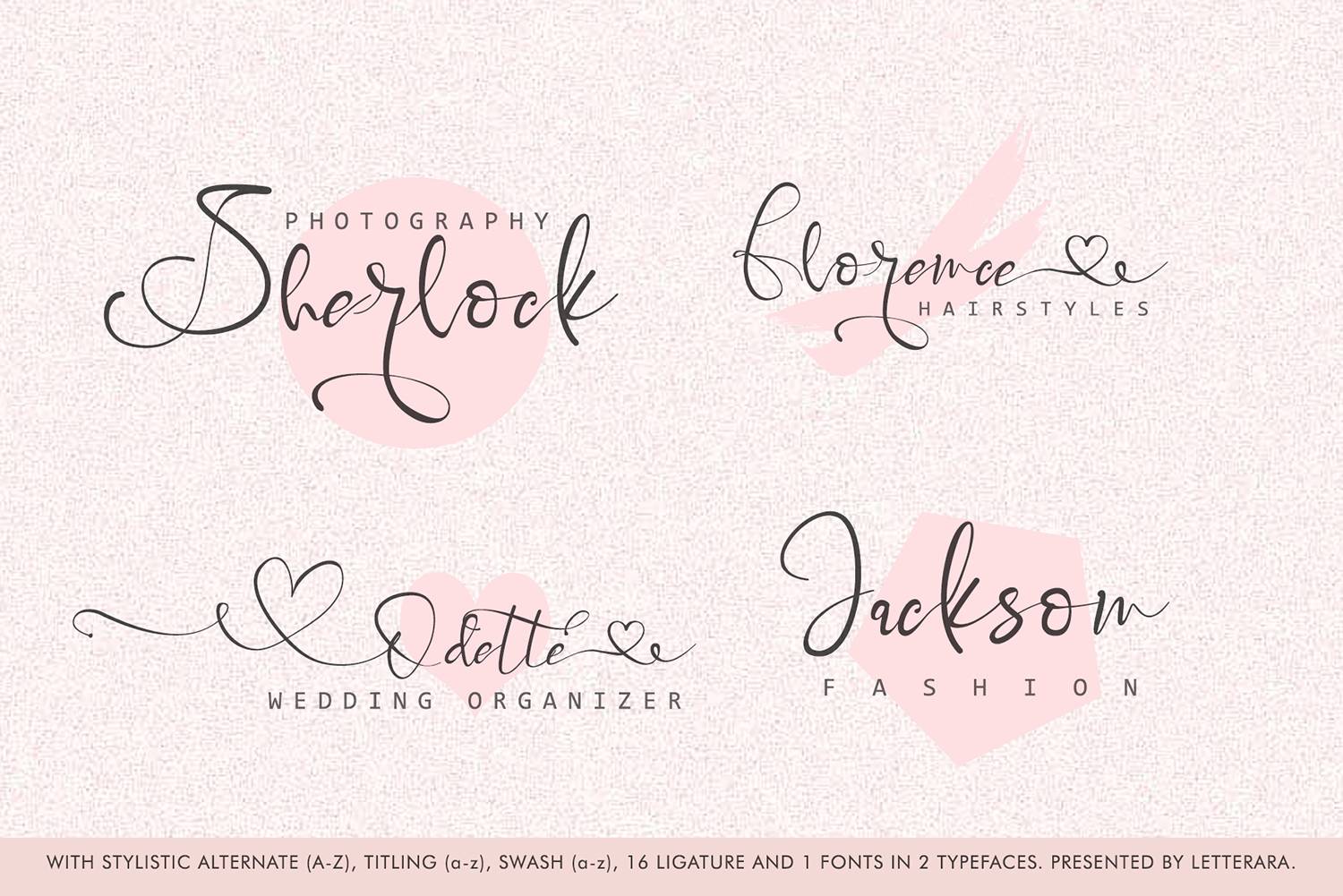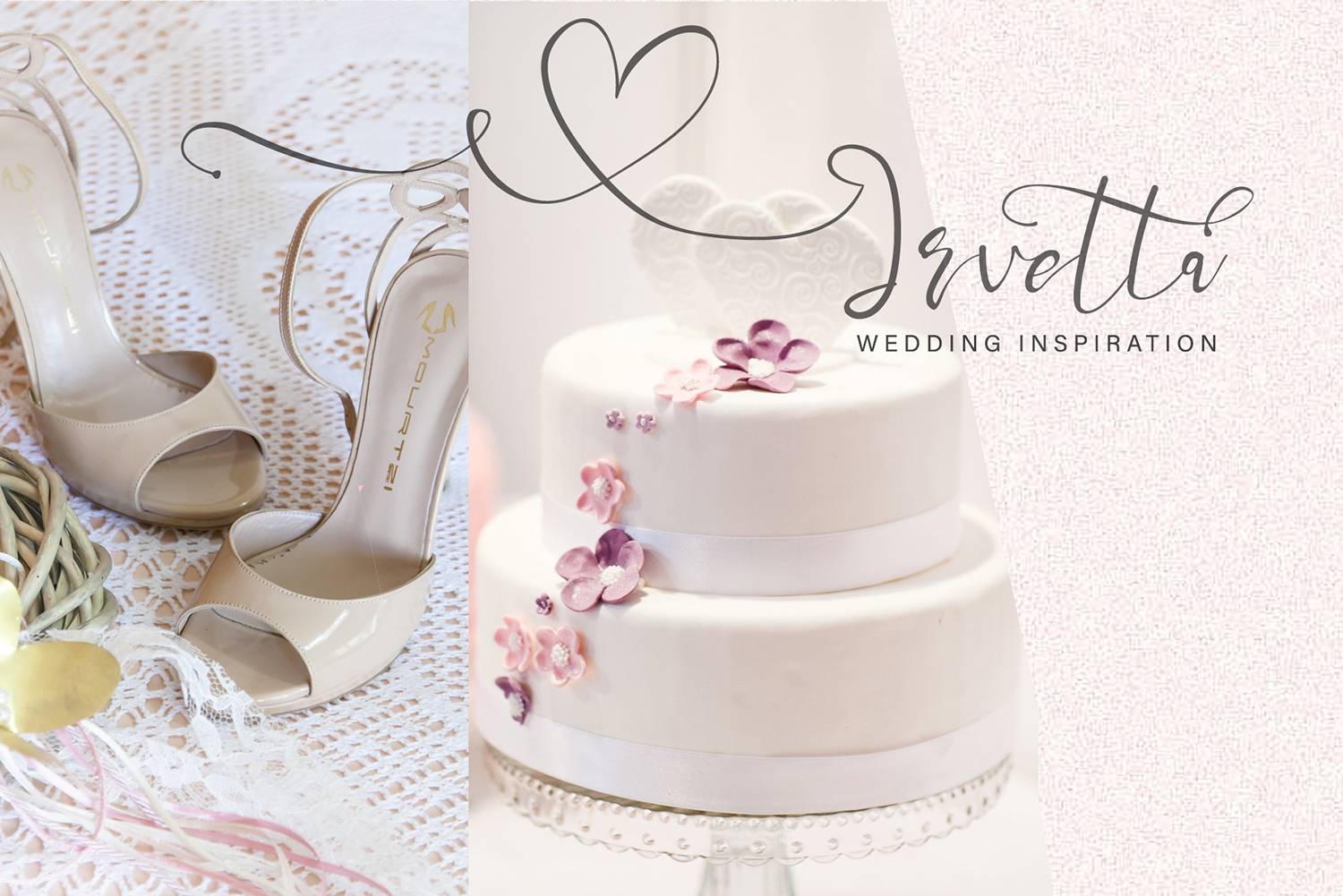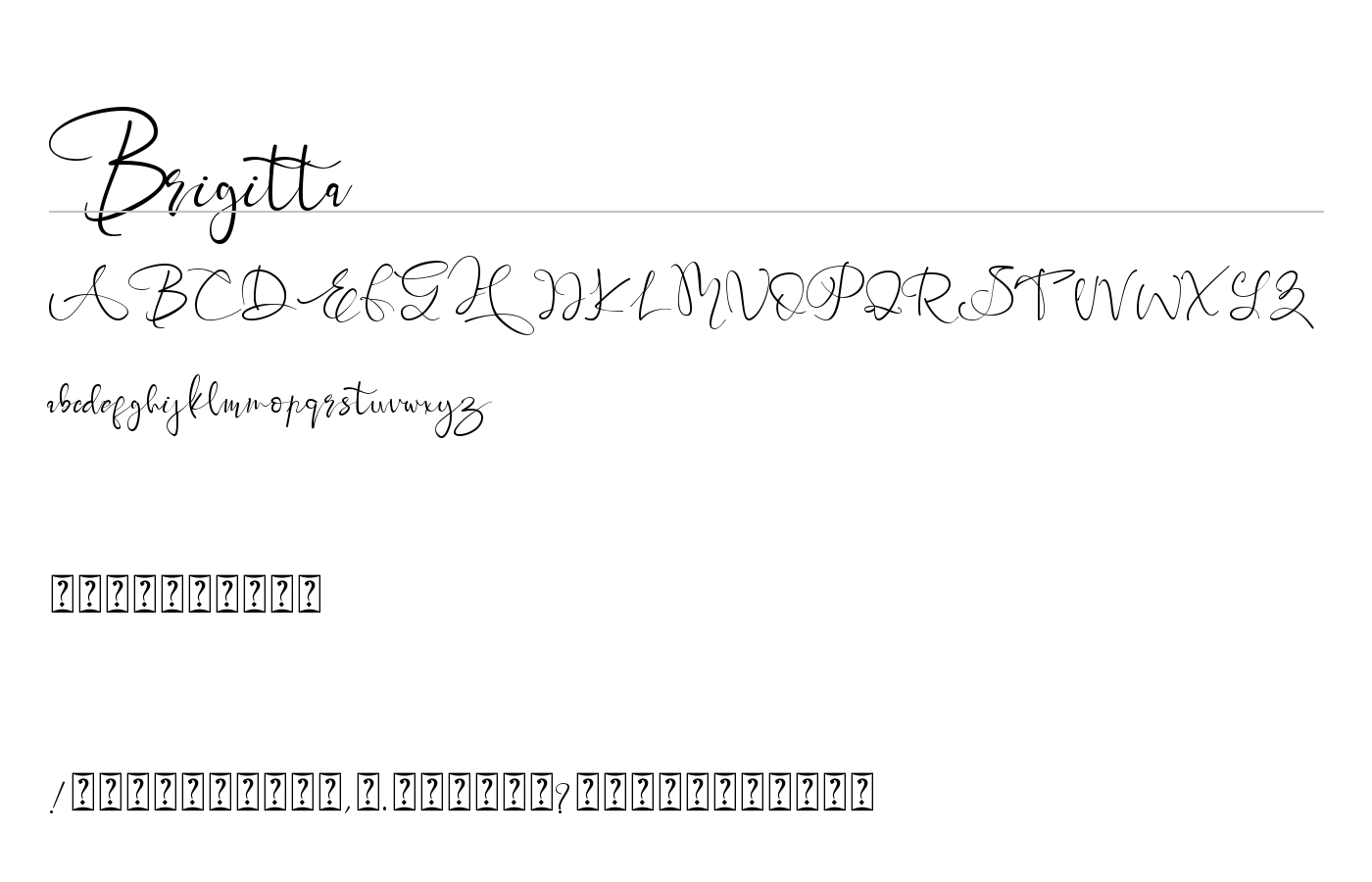
Brigitta is an elegant, delicate script font characterized by graceful, flowing lines and a refined, handwritten style. Its fine strokes and airy letterforms make it perfect for invitations, branding, and decorative headlines where a sophisticated and personal touch is desired. This font brings a sense of charm and femininity, ideal for luxury, fashion, or romance-themed designs.
Brigitta Font
About Brigitta Font
| Font family | Brigitta Font |
| Designer | Letterara 2019 |